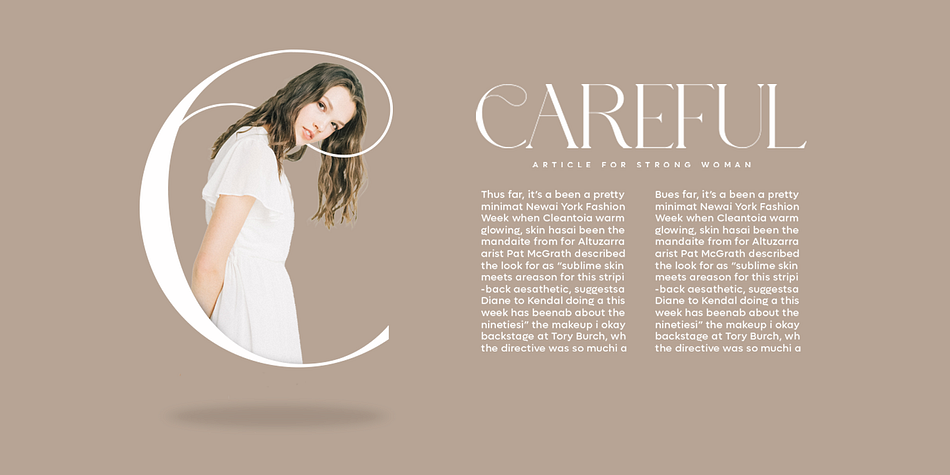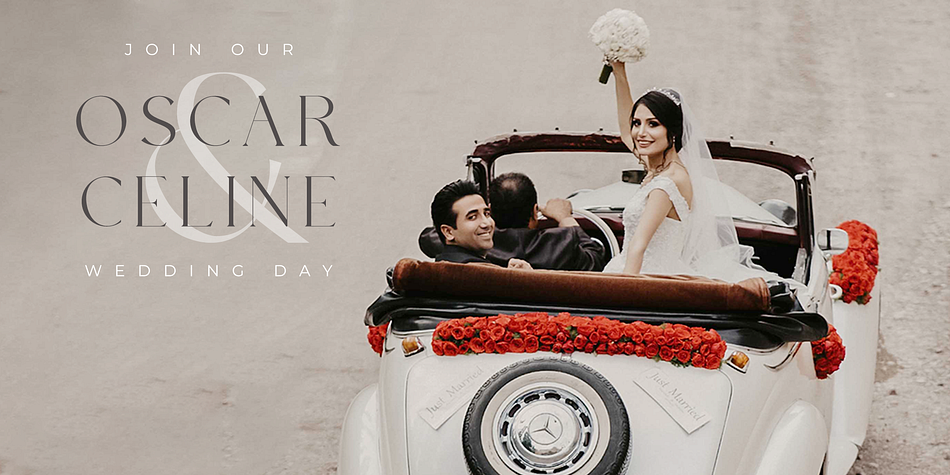
Cream Garlic
Cream Garlic is a display serif font family published by Sohel Studio.
Cream Garlic is a Classy serif typeface Unique alternate , multilingual support with perfect kerning. This typeface is perfect for an elegant & luxury logo , classy editorial design, women’s magazine, fashion brand , cosmetic brand, fashion promotion , modern advertising design, invitation card, art quote, home decoration , book/cover titles, special events, and much more.
Cream Garlic Features:
• Uppercase
• Alternates
• Numerals & Punctuation
• Accented characters
• Multilingual Support